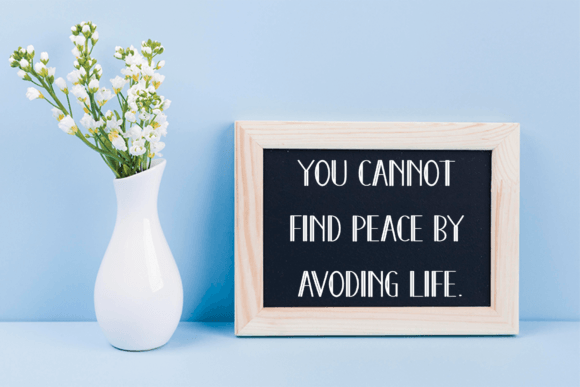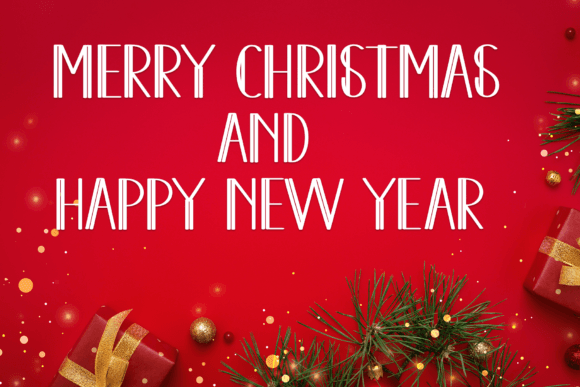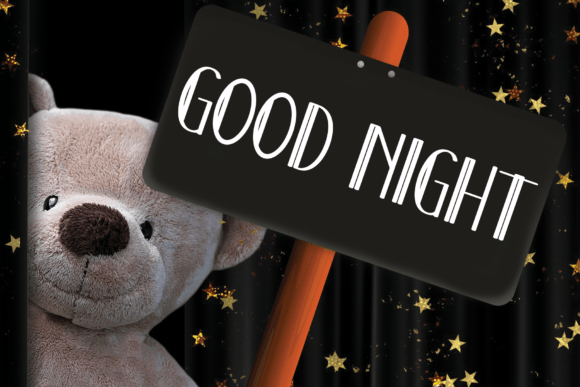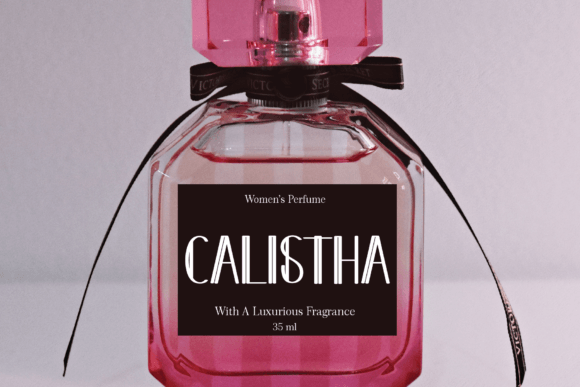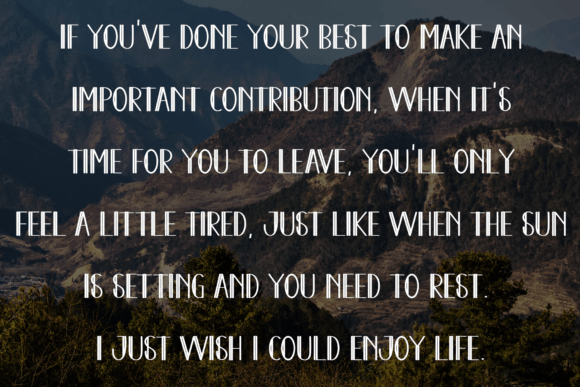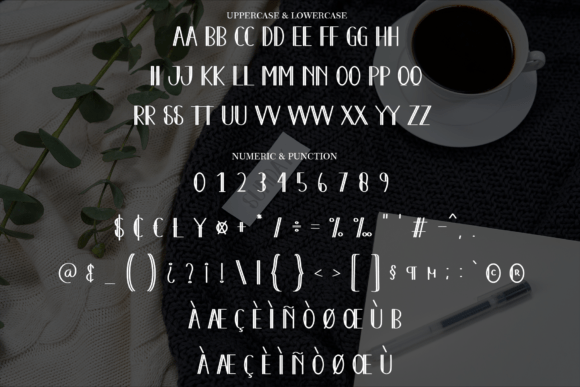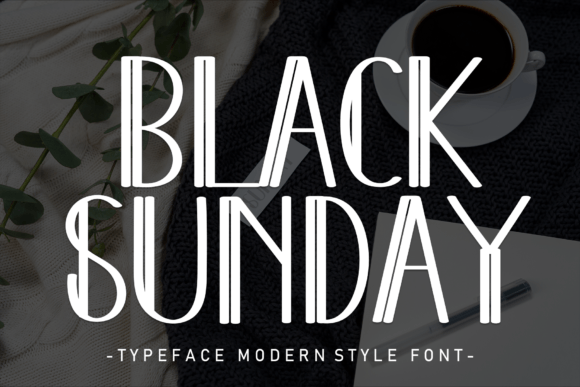
Introducing Black Sunday Font: The Sweet and Friendly Handwritten Display Font
Are you looking for a font that can add a touch of sweetness and friendliness to your designs? Look no further than Black Sunday Font! This beautiful handwritten display font is perfect for creating stunning wedding invitations, cards, and other designs that require a fun and playful touch.
What Makes Black Sunday Font Special?
Black Sunday Font is a fresh and neat font that is ideal for designers and crafters who want to add a personal touch to their work. Its sweet and friendly style makes it perfect for a variety of design projects, from wedding invitations and cards to posters and social media graphics.
One of the best things about Black Sunday Font is its versatility. It can be used for both personal and commercial projects, and it’s easy to read and understand. The font is also highly legible, making it perfect for designs that require a clear and concise message.
Characteristics of Black Sunday Font
So, what are the key characteristics of Black Sunday Font? Here are a few:
- Sweet and friendly style: Black Sunday Font has a warm and inviting style that’s perfect for creating designs that are friendly and approachable.
- Handwritten display font: This font is a beautiful handwritten display font that’s perfect for creating eye-catching designs.
- Fresh and neat: Black Sunday Font is a fresh and neat font that’s perfect for designers who want to create modern and stylish designs.
- Highly legible: This font is easy to read and understand, making it perfect for designs that require a clear and concise message.
Uses for Black Sunday Font
So, what can you use Black Sunday Font for? Here are a few ideas:
- Wedding invitations: Black Sunday Font is perfect for creating beautiful and elegant wedding invitations that will make your guests feel special.
- Cards: This font is also great for creating cards for special occasions, such as birthdays, anniversaries, and holidays.
- Posters: Black Sunday Font can be used to create stunning posters for events, promotions, and other marketing campaigns.
- Social media graphics: This font is perfect for creating social media graphics that are eye-catching and engaging.
Why Designers and Crafters Love Black Sunday Font
Designers and crafters love Black Sunday Font for a variety of reasons. Here are a few:
- High-quality design: This font is designed to high standards, with clean lines and a clear style that’s perfect for creating professional-looking designs.
- Versatile: Black Sunday Font can be used for a wide range of design projects, from wedding invitations to posters and social media graphics.
In conclusion, Black Sunday Font is a sweet and friendly handwritten display font that’s perfect for designers and crafters who want to add a personal touch to their work. Its fresh and neat style makes it ideal for creating stunning wedding invitations, cards, and other designs that require a fun and playful touch.